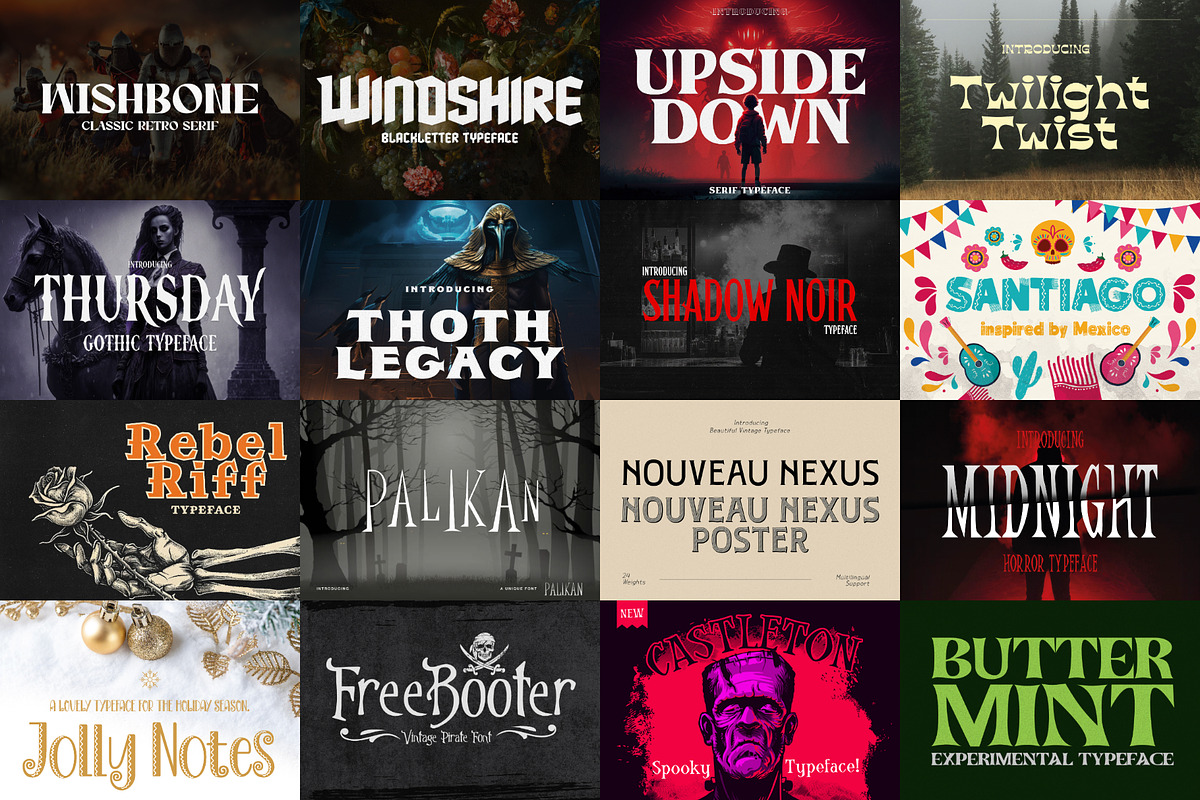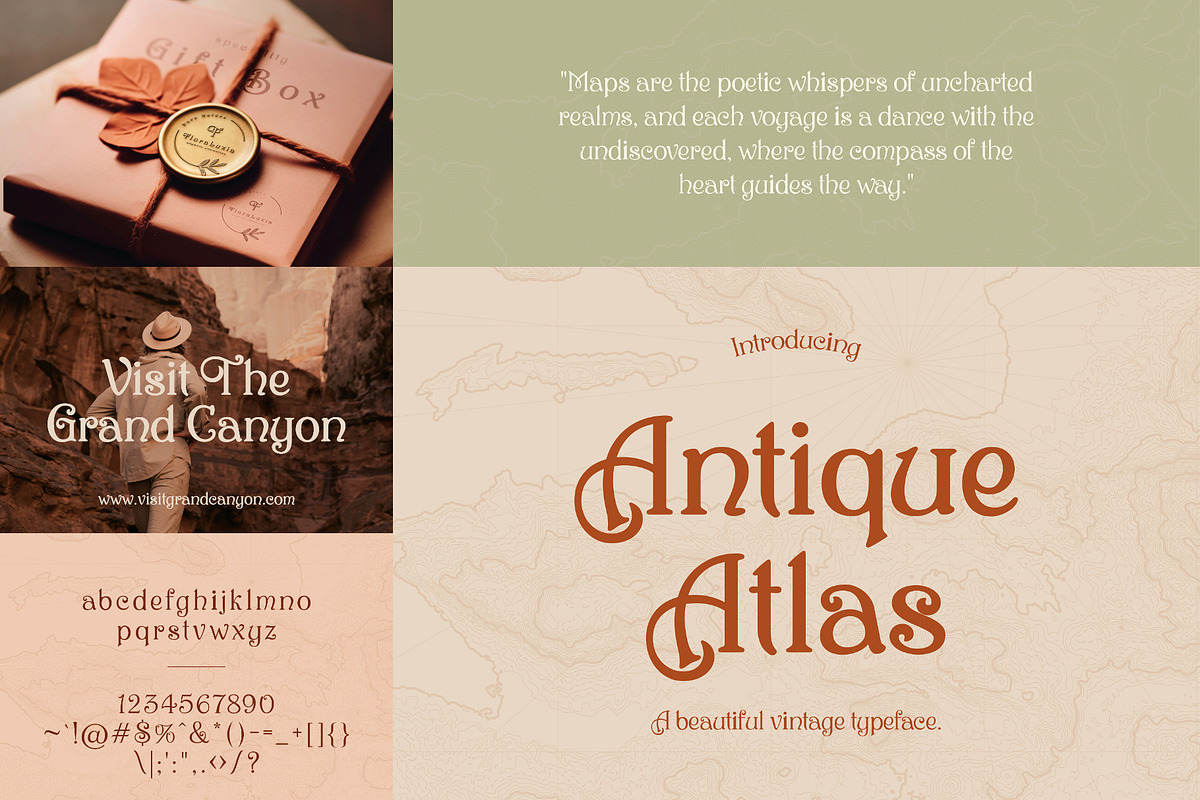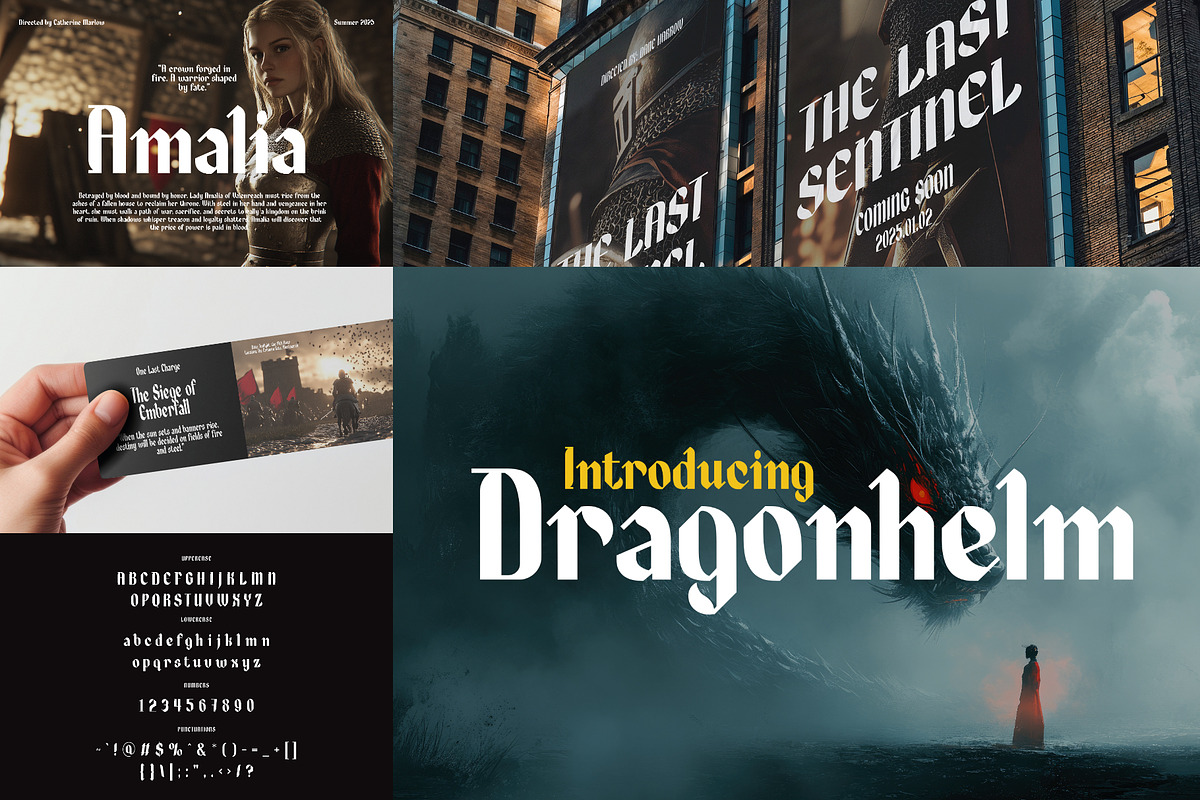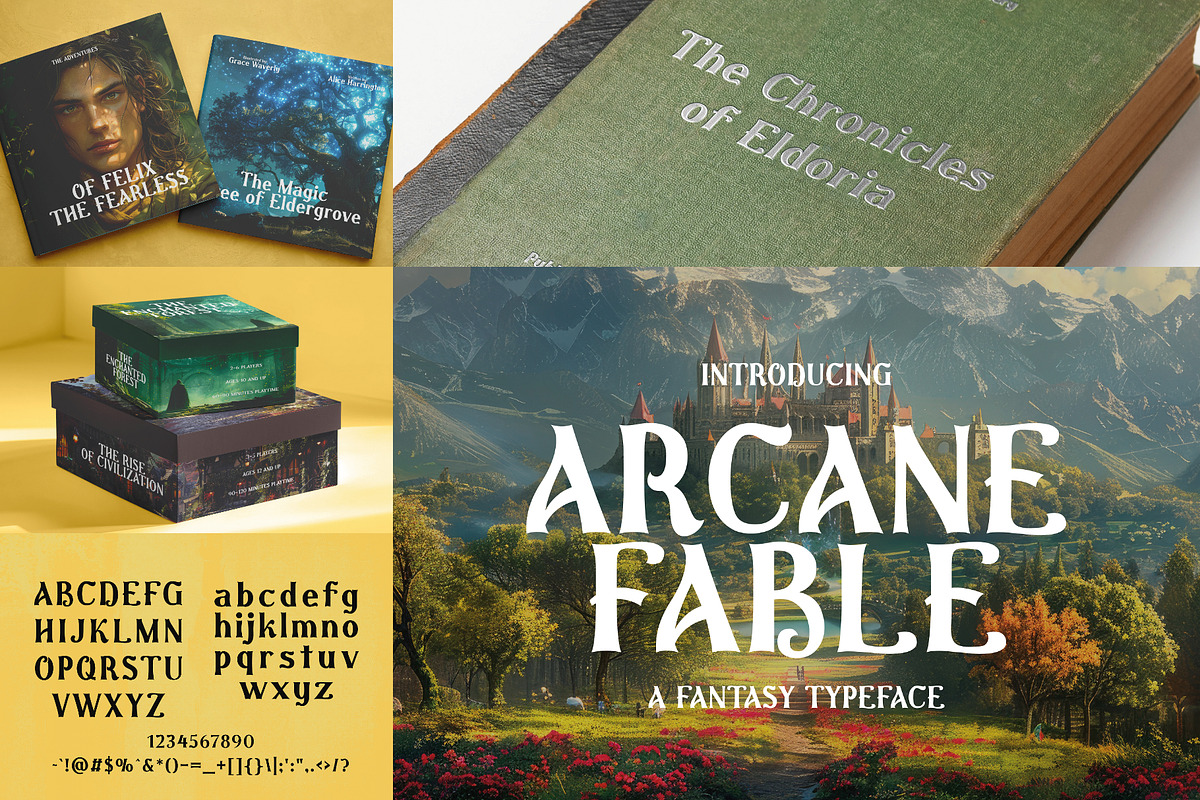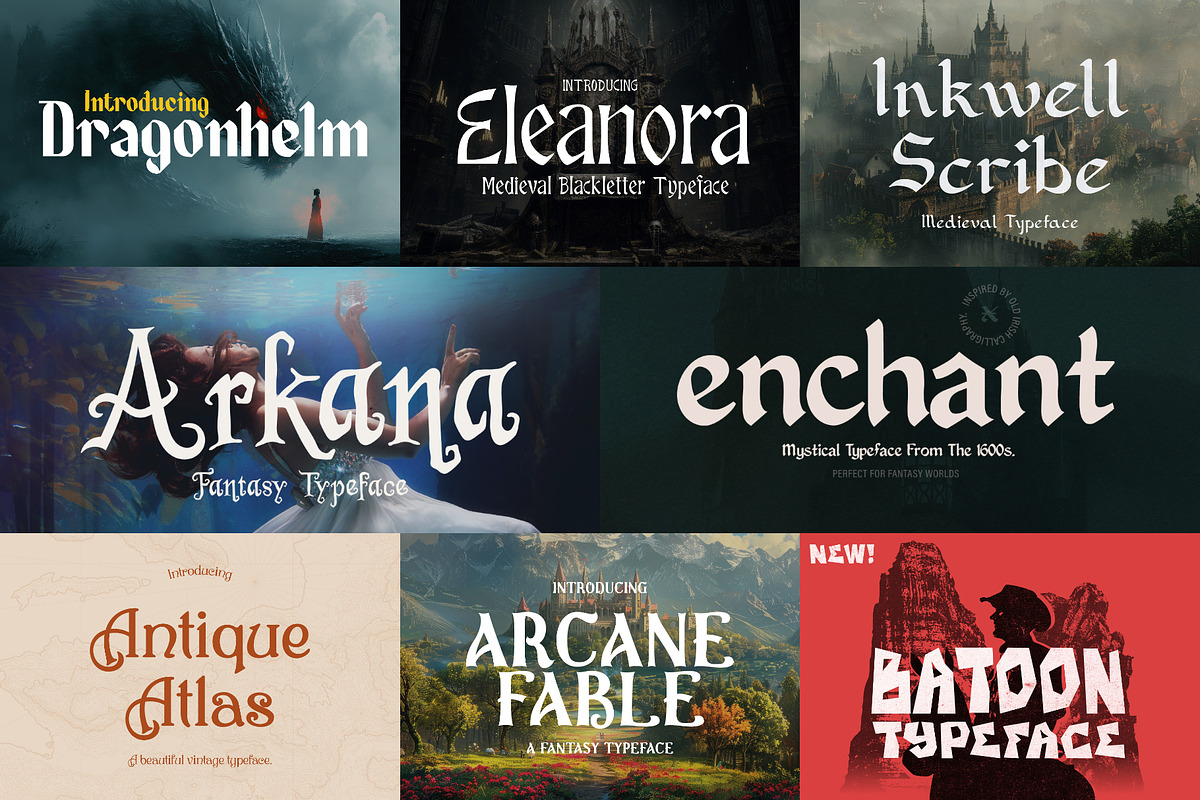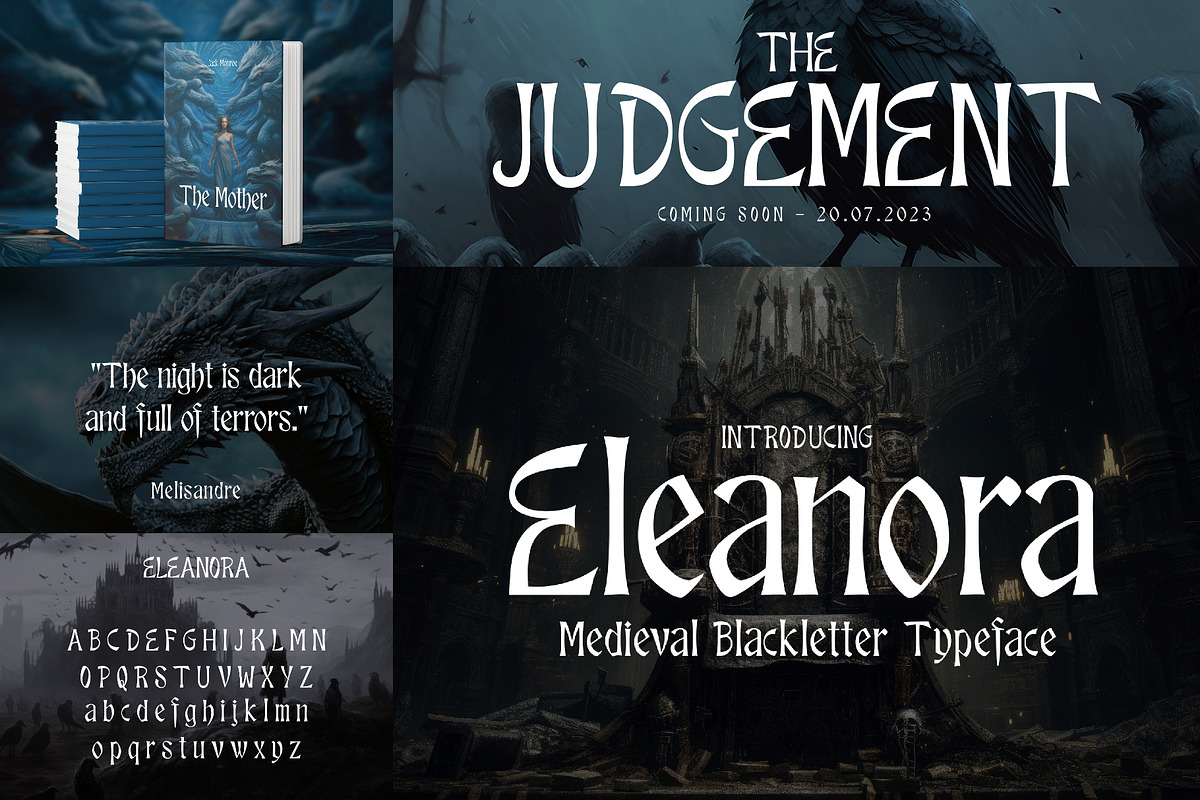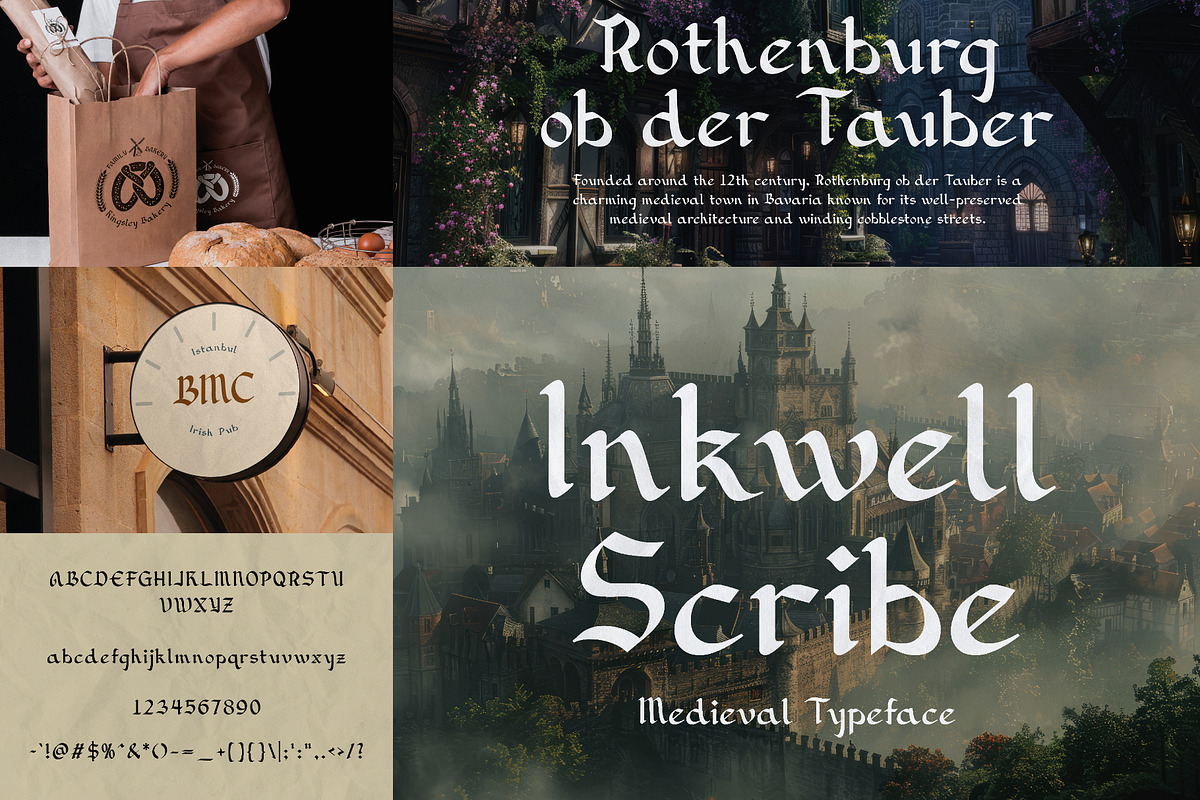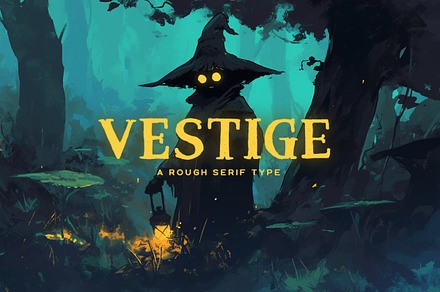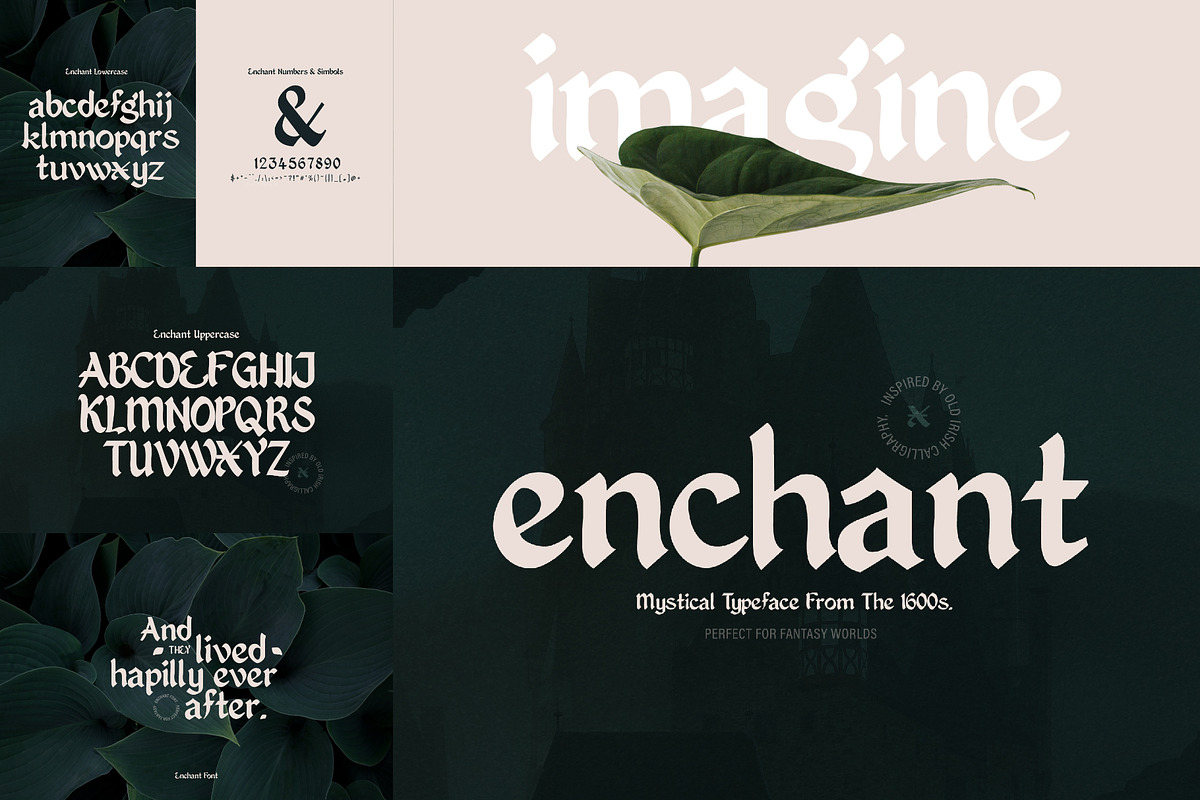
Fantasy Font Bundle (25 Fonts!)
Step into a world of magic and mystery with the Fantasy Font Bundle—a spellbinding collection of 25 handcrafted fonts designed to bring your most whimsical, mythical, and legendary ideas to life! Whether you're crafting fantasy book covers, RPG game graphics, mystical branding, or magical invitations, this bundle has endless possibilities—the only limit is your imagination.
🔮 What’s Inside?
- 25 Stunning Fantasy Fonts – From elegant elvish scripts to bold medieval typefaces, every font is designed to transport your audience to another realm.
- Perfect for All Fantasy-Themed Designs – Ideal for book titles, gaming graphics, posters, branding, movie-style lettering, and more.
- Magical Versatility – Whether your project calls for wizardly calligraphy, gothic mystique, or ancient runes, you’ll find the perfect font in this collection.